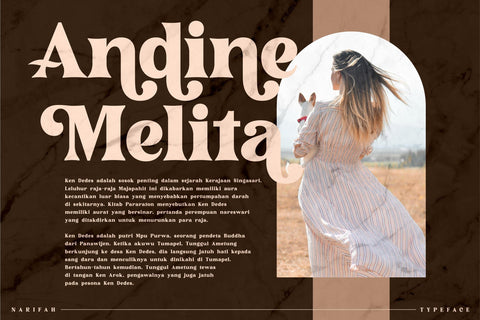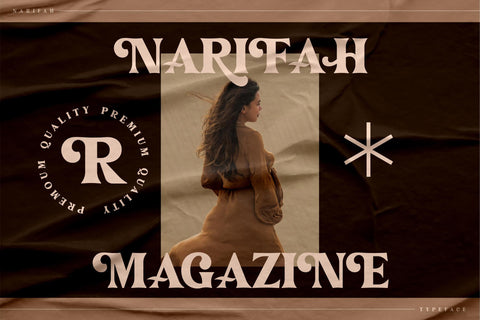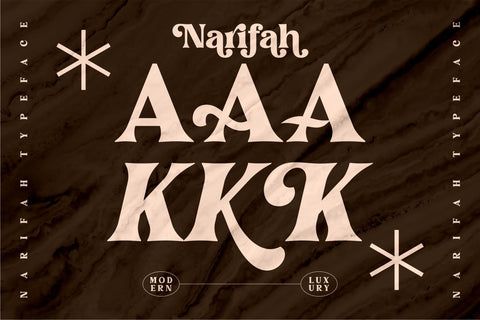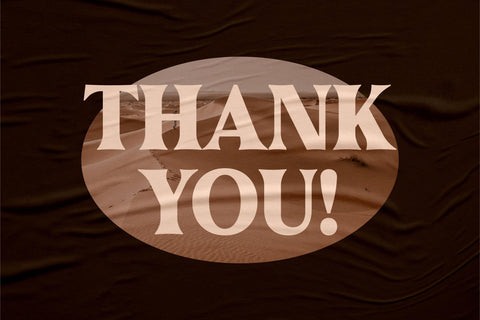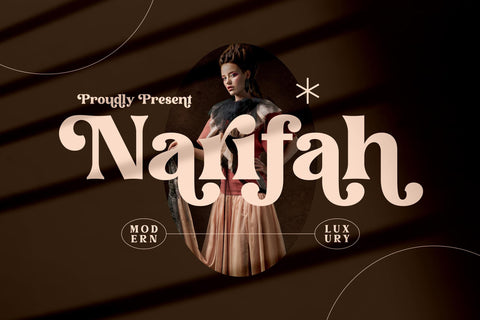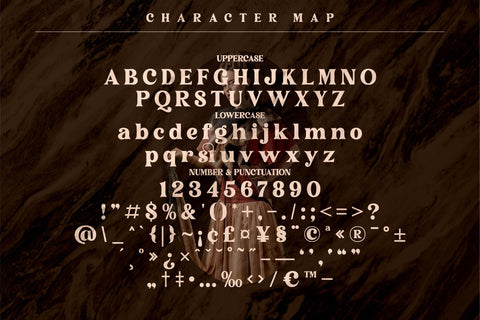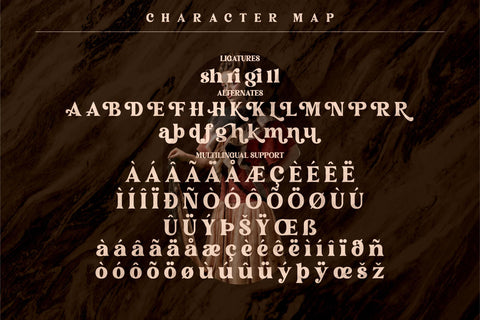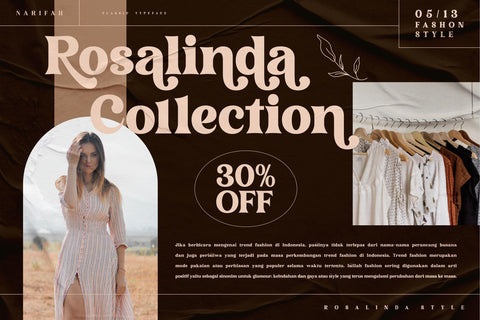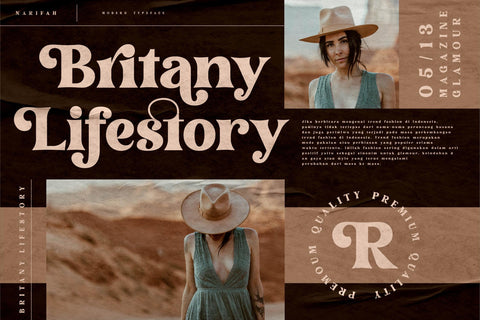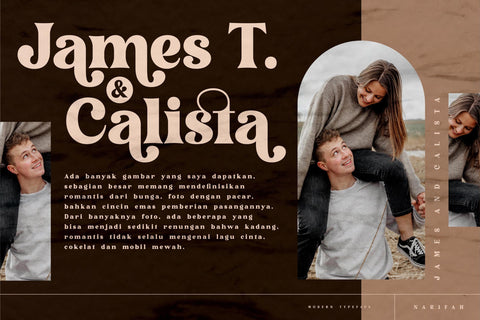
Narifah Typeface
Proudly present Narifah Typeface, created by Storytype,
A serif classic bold typeface that has own unique style & modern look.
This typeface is perfect for an elegant & luxury logo, book or movie title design, fashion brand,
magazine, clothes, lettering, quotes, and so much more.